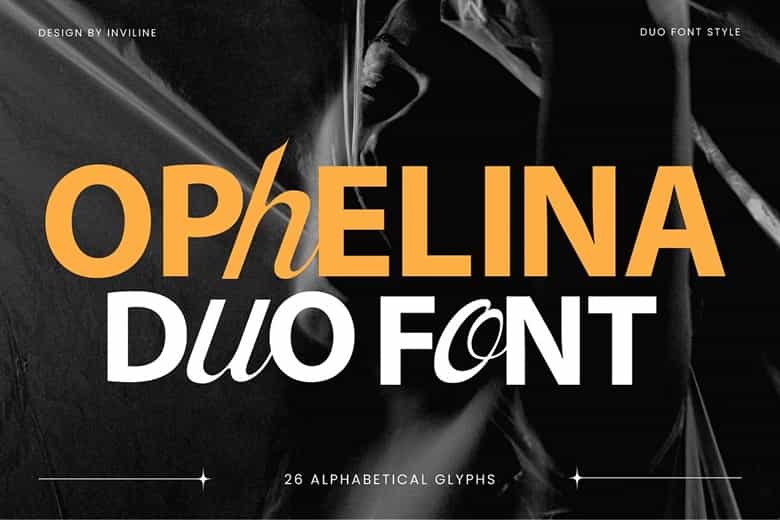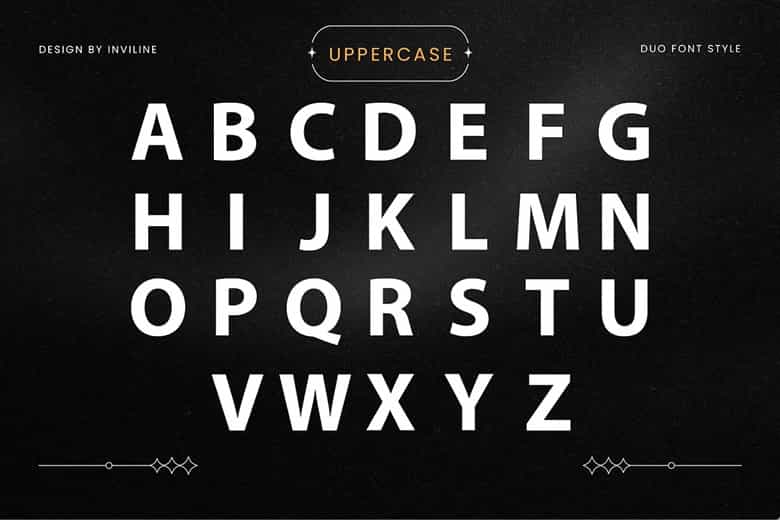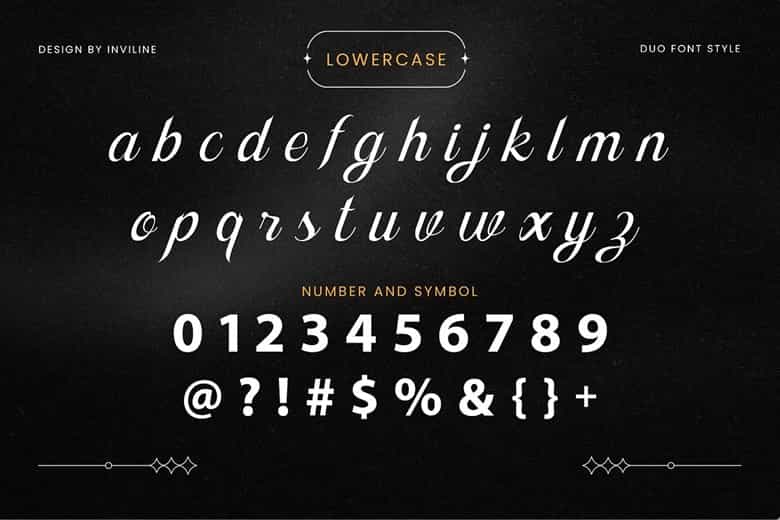
Discover Ophelina Font, part of the Sans Serif Script collection—a versatile and unique font perfect for adding a personal touch to your projects. Download it for free and enjoy crafting designs with style, from invitations to social media posts. This font is available exclusively for personal use, giving you the freedom to create without limits. Unlock your creativity with Ophelina Font today!
Ophelina is a new sans serif and script font duo. This font collection will bring a touch of modern-elegance to your designs, made with precision in crafting. An excellent call for adding little touch of Exclusive vibes in your branding, packaging, logos, and much more.